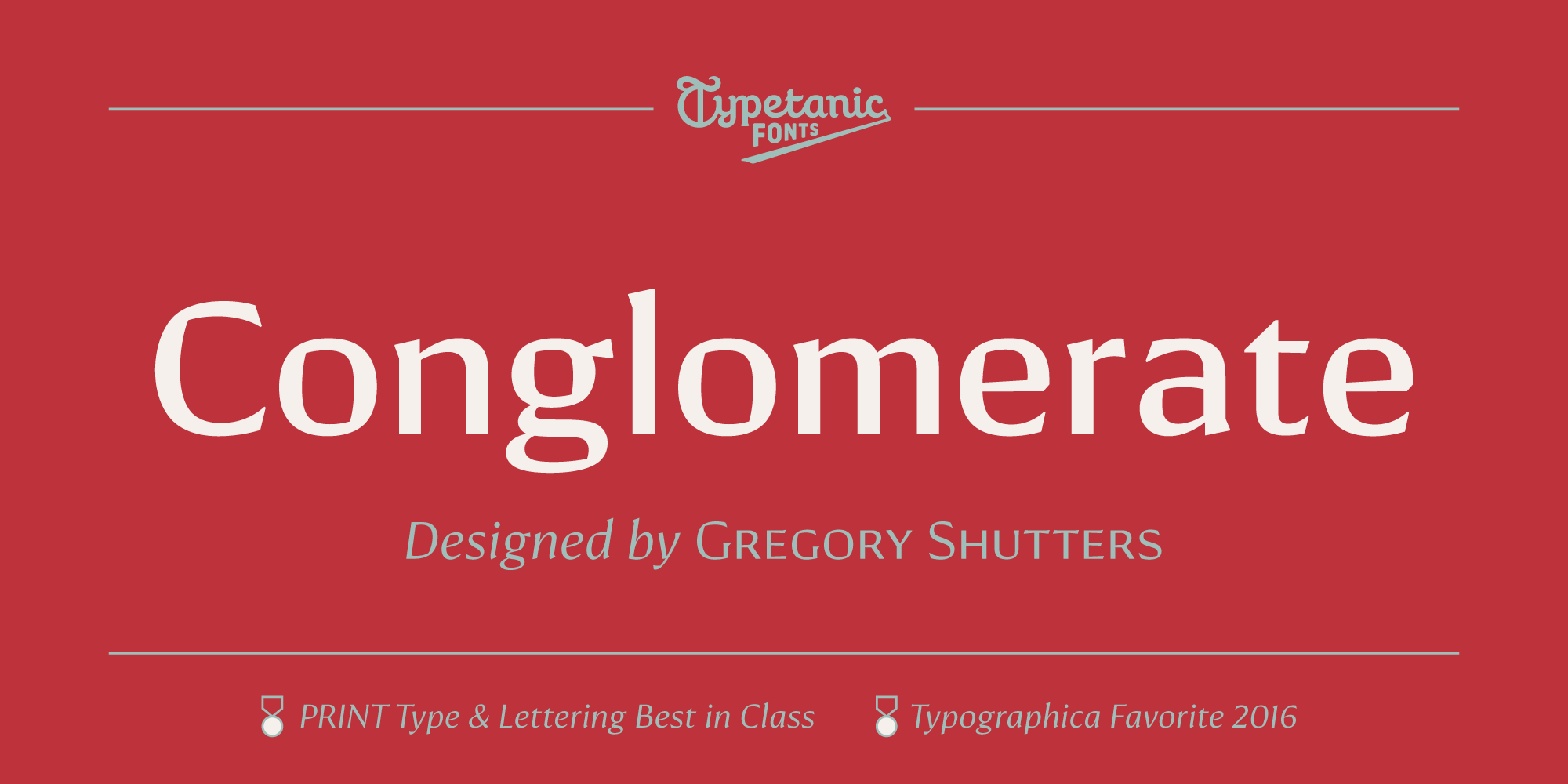
Conglomerate Font Free Download is a distinctive and often robust typeface, perfect for designs that aim to convey a sense of strength, industrial might, or a bold, contemporary presence. Imagine it making a powerful statement on corporate branding for large enterprises, dynamic tech company logos, impactful architectural presentations, or sturdy packaging for industrial products. Its solid, often geometric, and commanding character also makes it an excellent choice for heavy machinery advertisements, decisive event signage, and attention-grabbing digital interfaces where clarity and impact are paramount. Whether your goal is to impart a sense of scale, reliability, or a powerful, modern aesthetic, Conglomerate Font offers the stylistic punch to elevate your creative vision.
What makes Conglomerate Font truly exciting is its ability to project authority and stability with a contemporary edge. It often features strong, well-defined letterforms and a structured rhythm that ensures it stands out and commands attention, even in complex layouts. This isn't just another display font; it's a meticulously crafted typeface that brings a unique blend of bold aesthetics and robust functionality to any text. Designers will appreciate its powerful visual impact and how it can instantly infuse a design with a sense of gravitas and a grounded, forward-thinking feel, making it a compelling choice for projects that need to communicate scale, confidence, and modern strength.
The Conglomerate Font family is typically designed to offer a range of versatility, ensuring it can be applied effectively across various design needs. You can generally expect a Regular weight that forms the core of its aesthetic, embodying its characteristic strength and solidity. Often, additional weights like Bold or Heavy are included for even greater impact, and sometimes a Light or Thin version is available for contrast and hierarchy, allowing for a broader spectrum of use. This thoughtful range within the family ensures that Conglomerate Font Free Download can be effectively utilized for both prominent headlines where its power can shine and for supporting elements where its unique character still makes an impression.